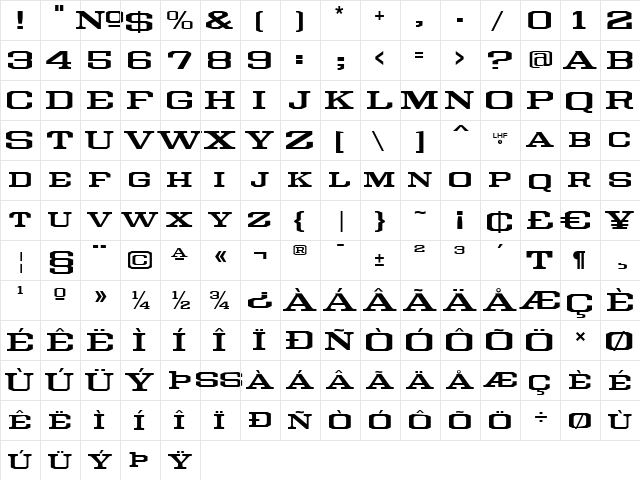
LHF Burbank Roman
Design Context for LHF Burbank Typeface
LHF Burbank takes a measured approach to typography — its balanced proportions and neutral character make it a reliable workhorse for both digital and print work.